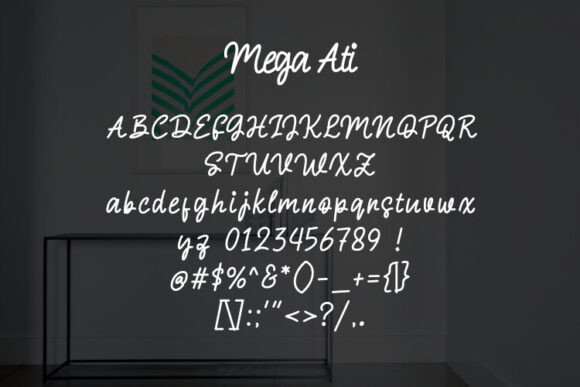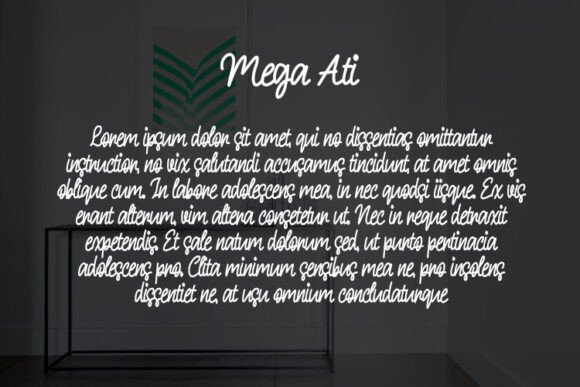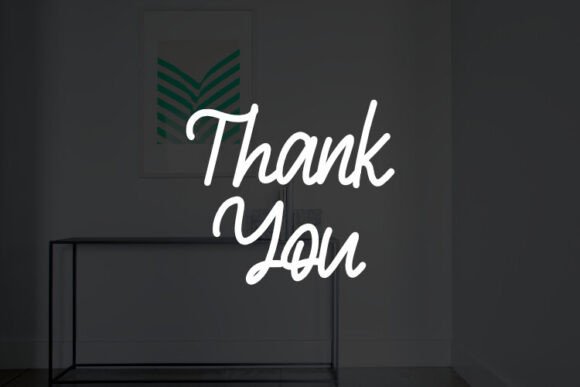
Introduction to Mega Ati Font Font
Fonts play a crucial role in design, and the Mega Ati Font font is a typeface that brings both character and versatility to any project. Whether you’re working on a branding project, a website, or a print design, the Mega Ati Font font offers a unique style that can elevate your work.
Meet βMega Atiβ, your go-to font for enhancing the visual impact of your apparel designs, including t-shirts and other merchandise.
Key Features of Mega Ati Font Font
Why Choose Mega Ati Font Font?
The Mega Ati Font font is more than just a typeface β it’s a design tool that helps you communicate your message with style and clarity. Its unique character set and versatile design make it suitable for a wide range of applications, from elegant invitations to bold headlines.
With its carefully crafted letterforms and balanced proportions, the Mega Ati Font font ensures readability and visual appeal across all mediums.
What makes Mega Ati Font font special?
The Mega Ati Font font stands out with its unique design, exceptional readability, and versatility across various design applications.